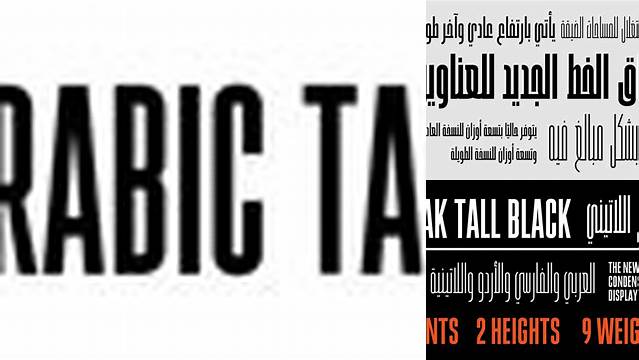
Zokak Font: A Free Arabic Design Guide
Zokak Arabic Tall Semi Bold Free Font: A Comprehensive Guide
Zokak Arabic Tall Semi Bold Free Font is a versatile typeface that's gaining popularity among designers and creatives. Whether you're a seasoned professional or just starting out, understanding the nuances of this font can significantly enhance your design projects. This guide will delve into everything you need to know about Zokak Arabic Tall Semi Bold Free Font, from its unique characteristics to practical applications and where to download it. So, let's dive in, guys!
Understanding Zokak Arabic Tall Semi Bold Free Font: What Makes It Special?
Zokak Arabic Tall Semi Bold Free Font, as the name suggests, is a distinctive typeface characterized by its tall and semi-bold appearance, perfect for any design. What immediately sets it apart is its contemporary aesthetic, blending modern sensibilities with traditional Arabic calligraphy influences. The font’s design balances legibility with a touch of elegance, making it suitable for a wide range of applications. This font is not just about aesthetics; it is designed to provide a visual impact while maintaining readability. The semi-bold weight adds emphasis without being overwhelming, making it ideal for headings, subheadings, and emphasized text. The tall structure of the characters contributes to its unique visual appeal, allowing it to stand out in various design contexts. Compared to many standard Arabic fonts, Zokak offers a refreshing take, steering clear of overly ornate or rigid styles. This makes it appealing to a broader audience. For many designers, Zokak Arabic Tall Semi Bold is a go-to choice. Its free availability makes it even more accessible, encouraging broader usage. The careful construction ensures that the font maintains its integrity and readability across different devices and sizes, which is an important consideration when you want to incorporate this font into your design.
The font's design includes subtle stylistic choices that influence its versatility. The curvature of the letters and the spacing between them have been carefully considered to maximize readability. These choices also contribute to the overall harmony of the font. One major aspect of Zokak Arabic Tall Semi Bold is its ability to capture attention. When used in designs, the font creates a striking visual element. The bold strokes ensure that the text pops out, while the tall structure adds a dynamic feel, which makes it perfect for many different things. The combination of these elements makes it ideal for use in various forms of media. Whether it's printed materials or digital platforms, the font's adaptability is evident. Furthermore, the consistent design across all characters is another quality. Each letter is carefully crafted to fit with the other characters. This characteristic is crucial because it helps to maintain a unified aesthetic. The semi-bold weight ensures that the text is easy to read, even in smaller sizes, while the height of the characters gives them a visual presence that demands attention.
Zokak Arabic Tall Semi Bold's Design Philosophy and Aesthetics
The design philosophy behind Zokak Arabic Tall Semi Bold Free Font centers on achieving a perfect balance. The core concept is to blend aesthetic appeal with practical readability, making it suitable for diverse applications. The font is designed to be both visually captivating and functional. The aesthetic approach incorporates modern elements with traditional Arabic calligraphic techniques, resulting in a unique blend that respects the heritage. The design decisions reflect an understanding of what makes a font effective. Every detail, from the strokes' weight to the letter spacing, is meticulously refined to optimize clarity and legibility. The aesthetics also reflect a desire to provide designers with a versatile tool. The semi-bold weight enhances text visibility, ensuring the font remains effective. The overall design philosophy emphasizes the value of simplicity. By keeping the design clean and focused, it is easy to use it. This reduces visual clutter and makes it suitable for both bold headlines and detailed body text. It reflects a thoughtful approach to typography. The font aims to be a communication tool. This philosophy ensures that Zokak Arabic Tall Semi Bold can be incorporated into various projects while maintaining its unique personality and visual appeal. Its ability to perform is a key aspect. The design principles contribute to its overall functionality.
Practical Applications of Zokak Arabic Tall Semi Bold Free Font in Design
Zokak Arabic Tall Semi Bold Free Font is incredibly versatile. It is useful for a wide range of design projects. Its tall, semi-bold design makes it ideal for headlines, titles, and display text. The font immediately captures attention, which makes it very useful for any promotional material. Whether you are creating posters, flyers, or digital banners, Zokak ensures that your message stands out. Its striking appearance makes it a go-to choice for branding and marketing materials. Companies and organizations leverage this font. When used in logos and branding, Zokak can create a memorable brand identity. This font is perfect for various forms of print and digital media. The font's distinct characteristics give a unique appearance to a wide range of applications. From website headings to social media graphics, Zokak’s bold and clear presence significantly enhances visual communication.
When creating marketing materials, Zokak enhances the impact of your messaging. Its design is carefully considered to maximize readability and aesthetic appeal, making it excellent for a variety of media. In the realm of print media, Zokak can be used for brochures, magazines, and books. For digital projects, it suits various digital platforms. The font adapts very well to different sizes and resolutions, ensuring that the text looks great on any screen. This adaptability makes it perfect for website design, mobile apps, and social media graphics. Moreover, Zokak's versatility makes it suitable for both formal and informal contexts. It is easy to use in formal environments such as corporate presentations or educational materials, which makes the text easy to read.
Utilizing Zokak in Branding and Marketing Campaigns
In the dynamic world of branding and marketing, Zokak Arabic Tall Semi Bold Free Font is a powerful tool. Its unique characteristics help create a memorable brand identity. Zokak helps to capture audience attention. Its tall structure and semi-bold weight combine to make headlines and titles visually striking. This is crucial when you need to make a strong impression. When used in logos, Zokak instantly sets a brand apart. Its distinctive aesthetic creates an impression. In marketing campaigns, the font supports consistent messaging across all platforms. From social media posts to advertising materials, the font ensures that your brand is recognizable and visually appealing. The font enhances brand recognition. This is very useful when you want to ensure that your brand is consistent and visible. It helps in building a strong and lasting brand identity. The font provides flexibility. The font is appropriate for many different campaigns. The font maintains design consistency.
Integrating Zokak into Website and UI Design
Integrating Zokak Arabic Tall Semi Bold Free Font into website and UI design improves user experience. The font's clarity and unique design make it ideal for creating an attractive and user-friendly interface. It ensures that the content looks great. The readability of Zokak enhances the clarity of the content. When used in website headings, titles, and navigation elements, the font provides a sense of professionalism and style. The font will help to catch the user's attention. This helps to create an immediate impact on visitors. Zokak's semi-bold weight and tall structure ensure that text is visible. It helps to create a memorable experience. Because of its versatile design, it enhances the website's overall visual appeal. The font can also be paired with other typefaces. This expands the possibilities for UI design. When you incorporate Zokak, you can ensure that your website is both visually appealing. The unique visual elements enhance user engagement. The font ensures that text elements are clear and visually appealing. It supports better content consumption. This improves the website's overall user experience.